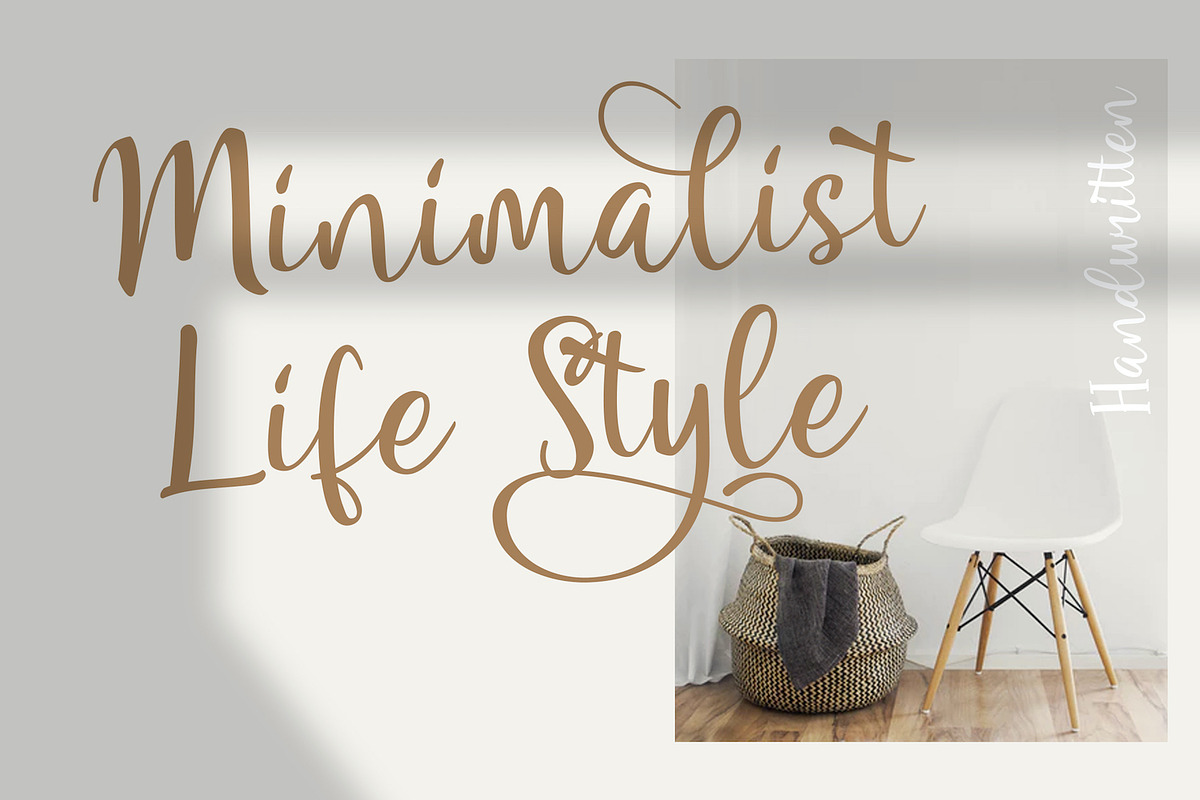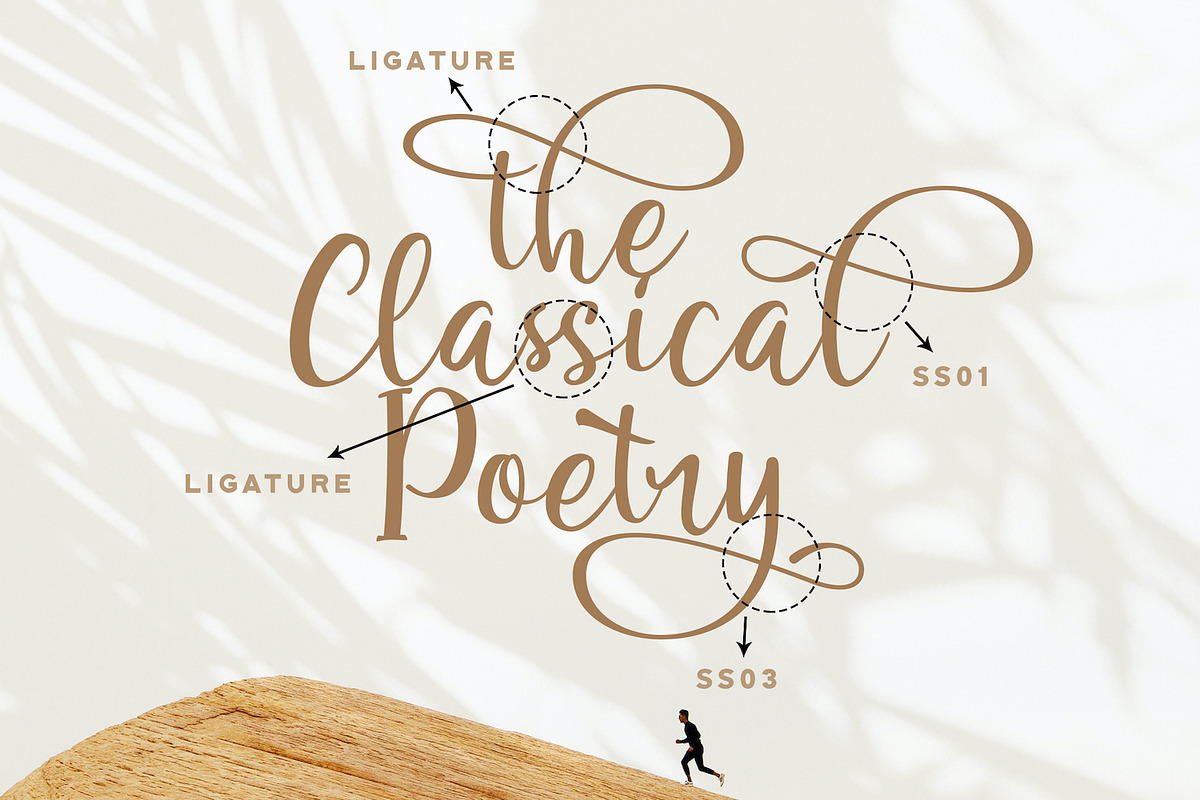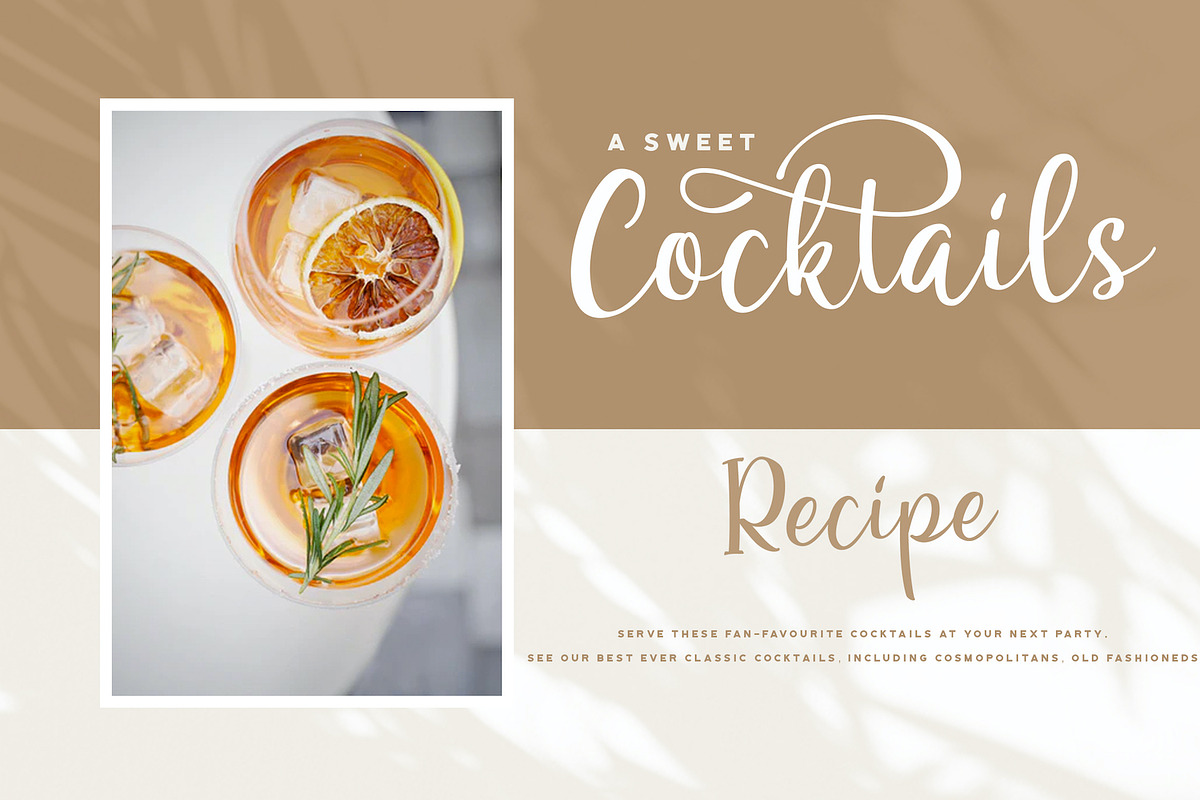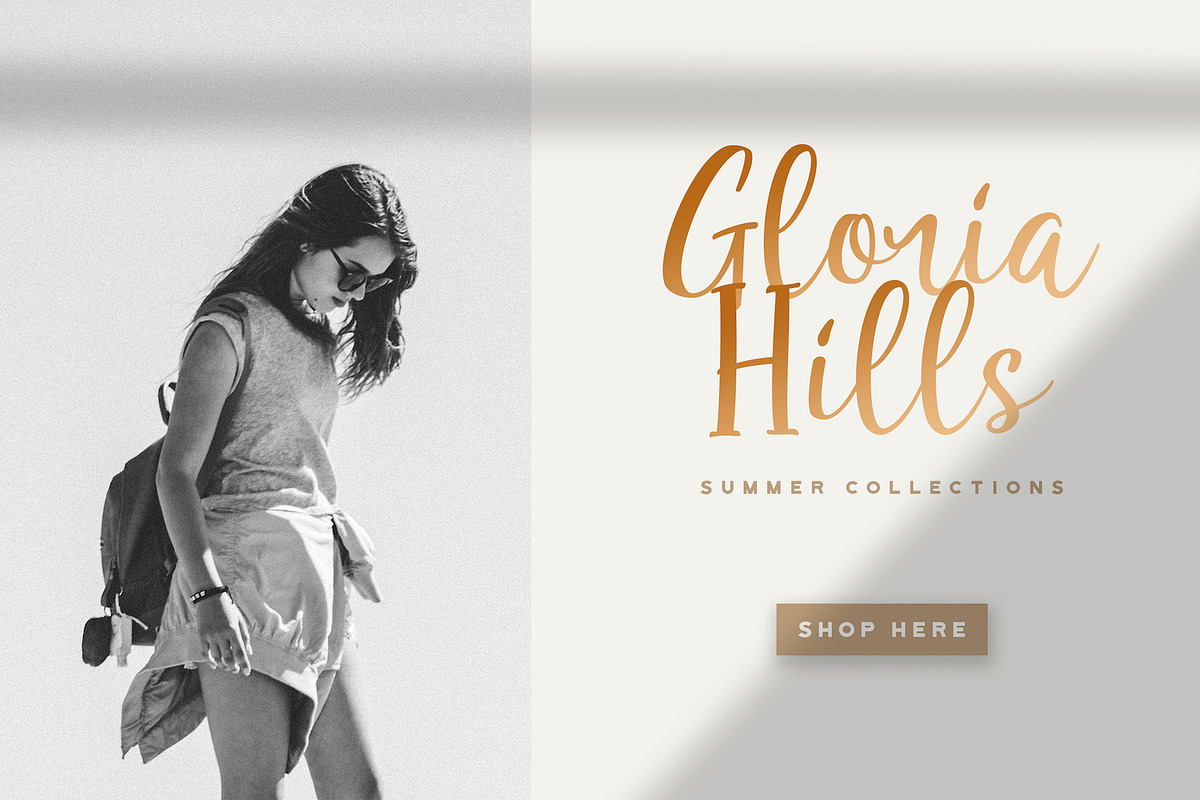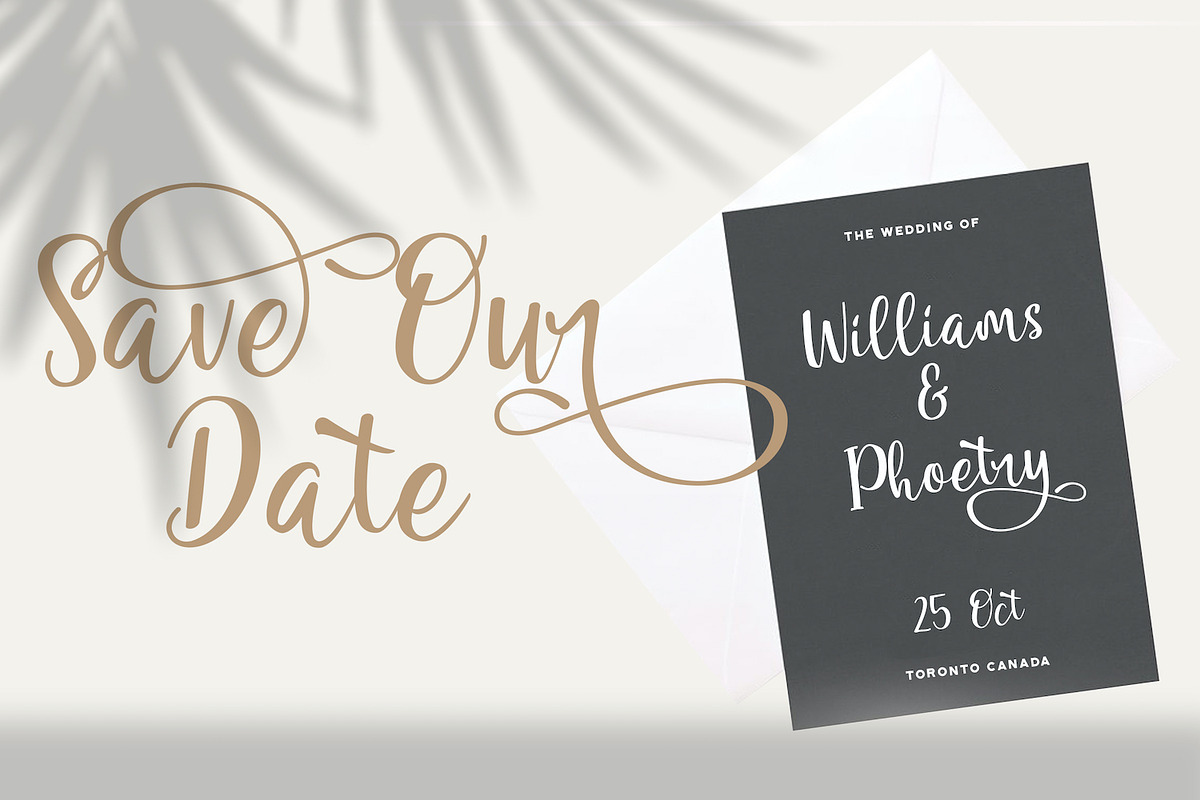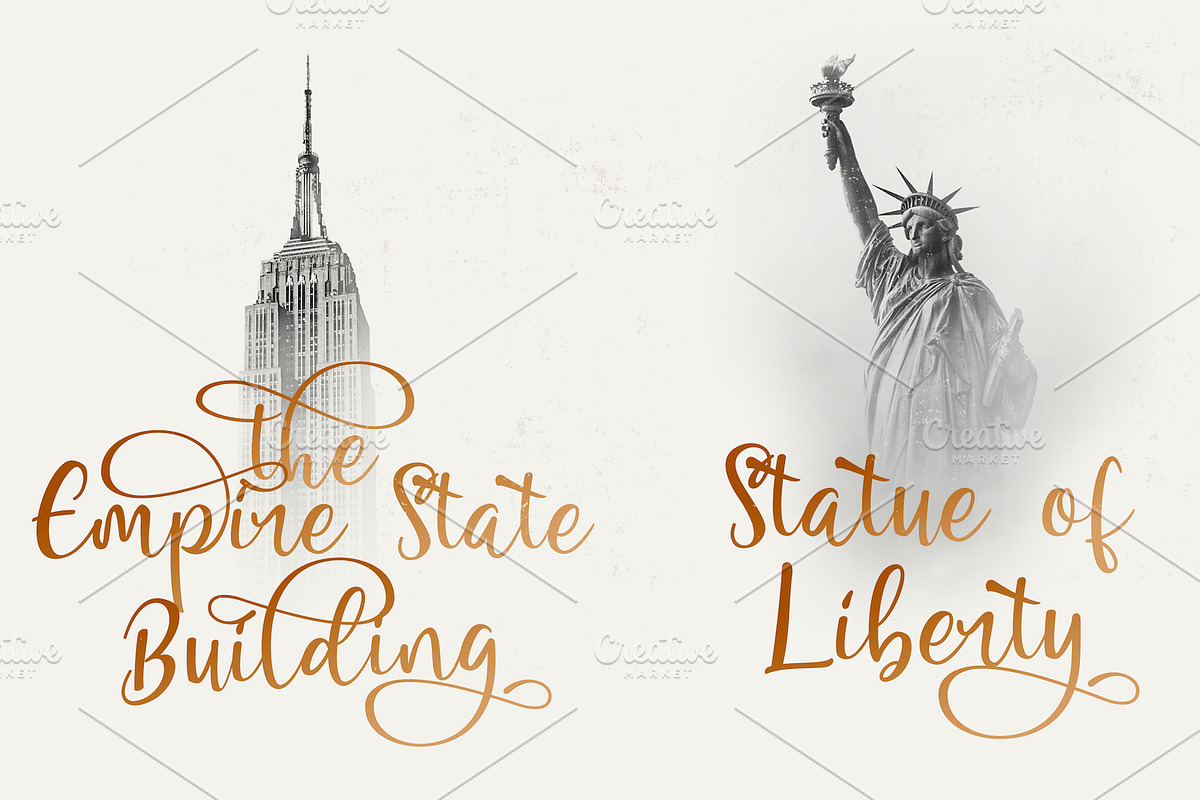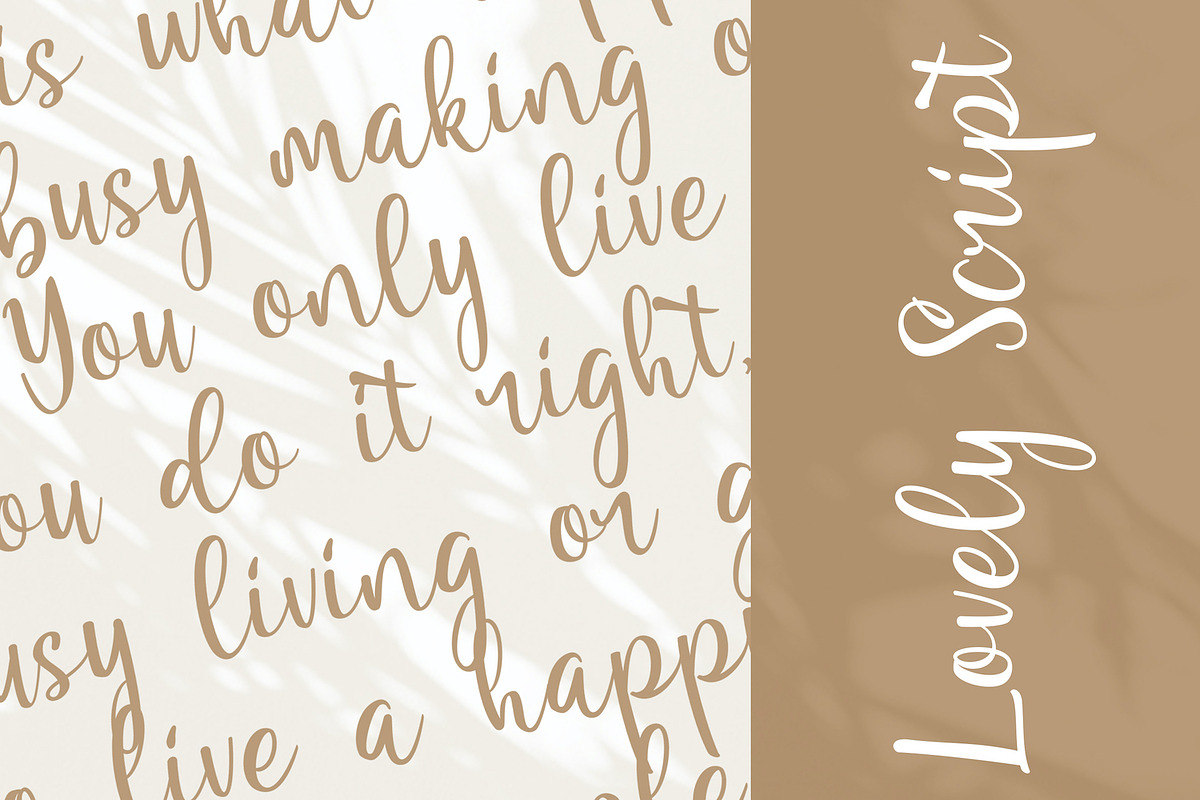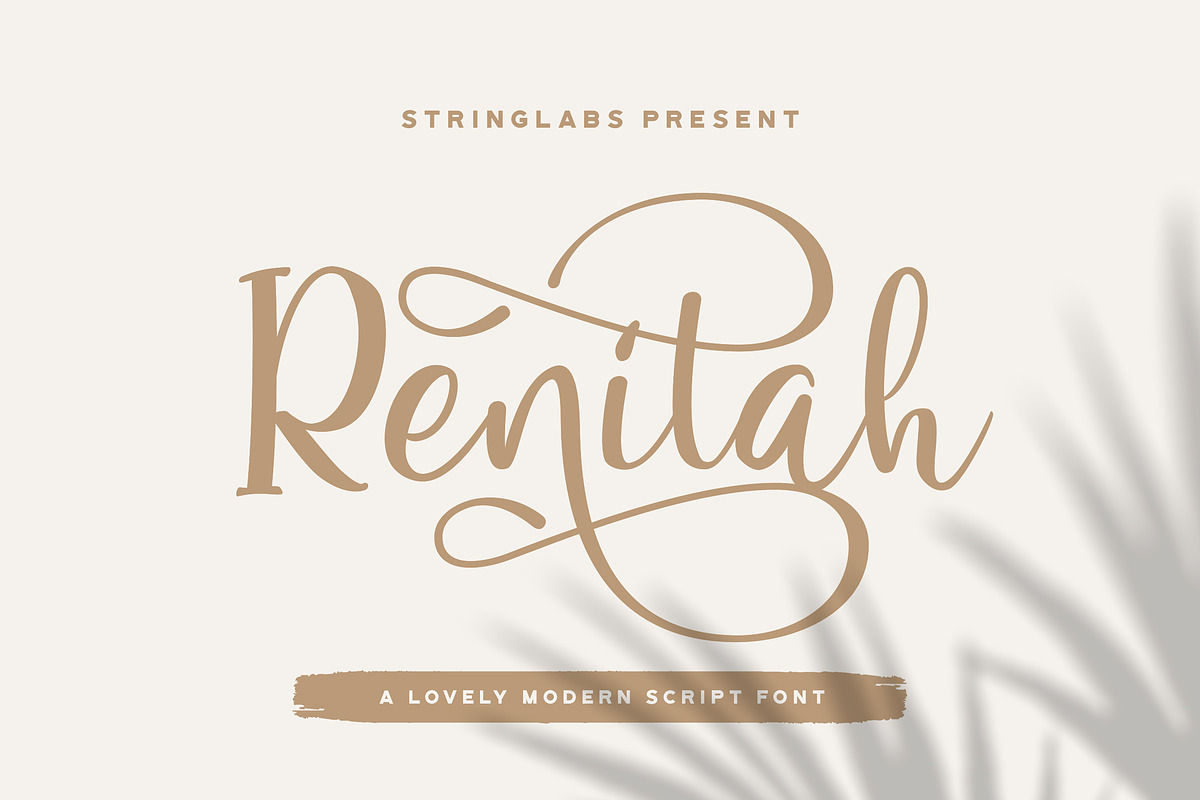
Renitah - Lovely Script Font
Introducing Renitah - Lovely Script Font
Renitah is a Script Font with Lovely Calligraphy Style. This font is perfect for fashion brand, wedding invitation, business card, logo brand, signature, and then calligraphy. This Font contains Elegant, Creative, Beautiful and has a Unique Concept.
- This Font contains Elegant, Creative, Beautiful and has a Unique Concept.
Why Renitah - Lovely Script Font is worth a look
Renitah - Lovely Script Font by StringLabs fits naturally into Branding, posters, packaging, typography.